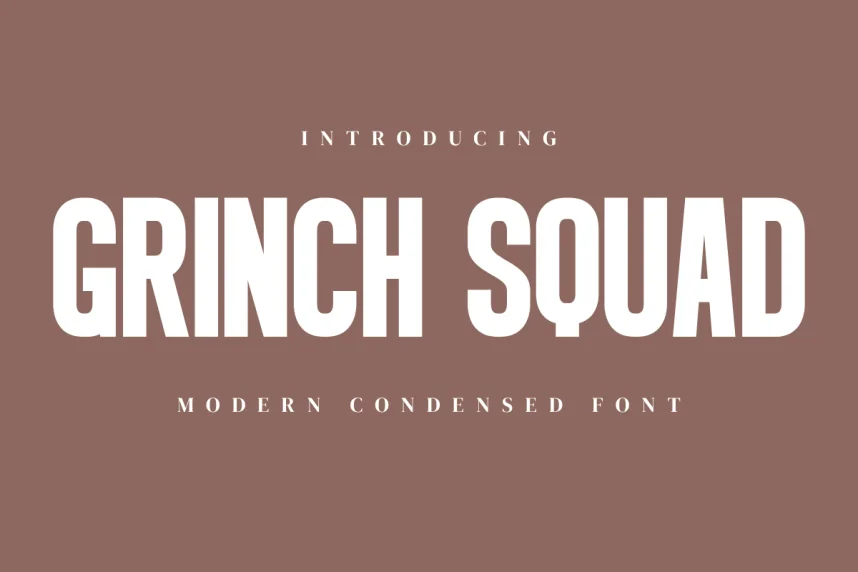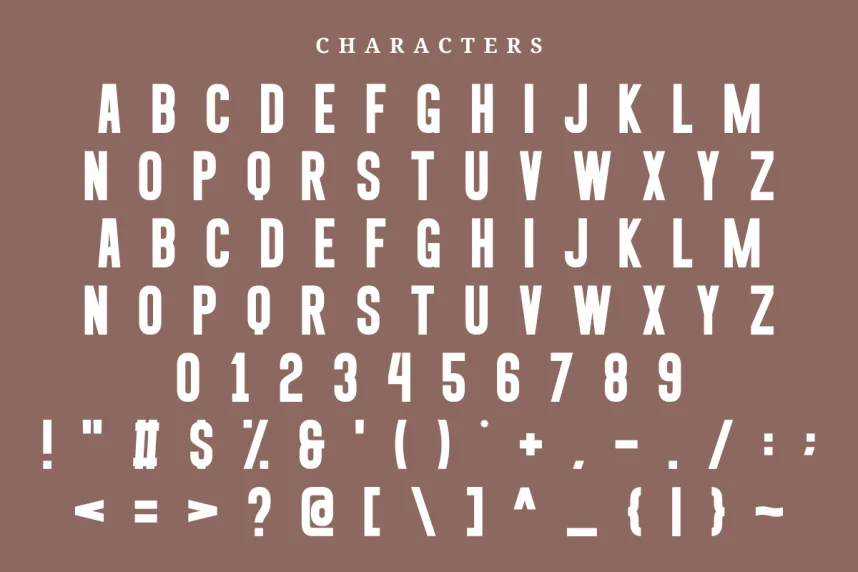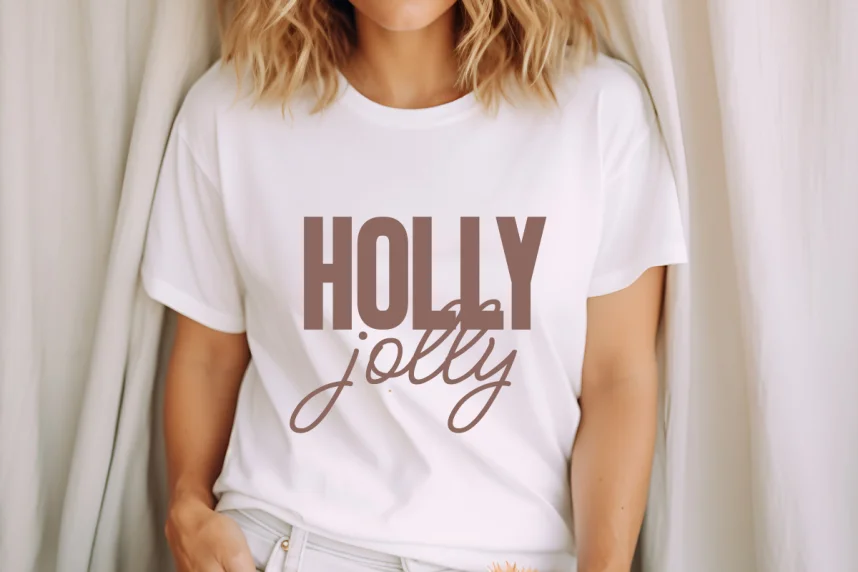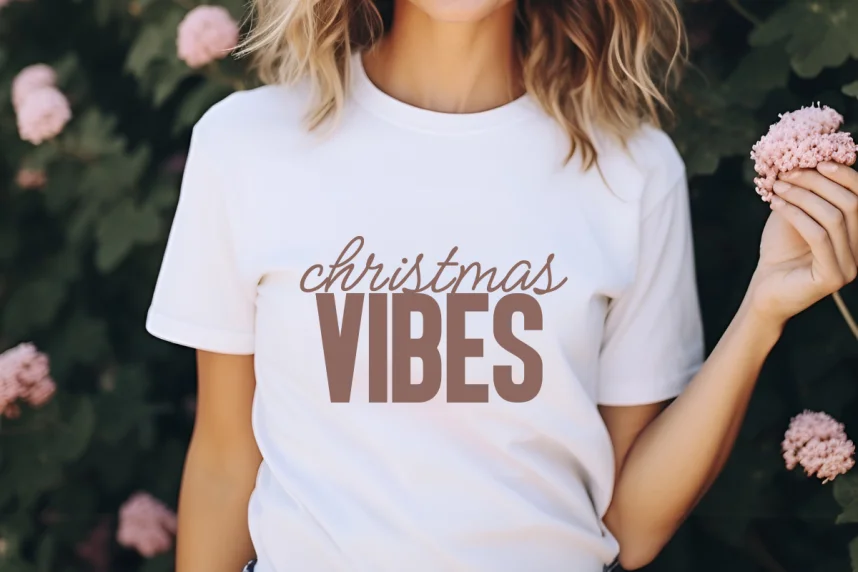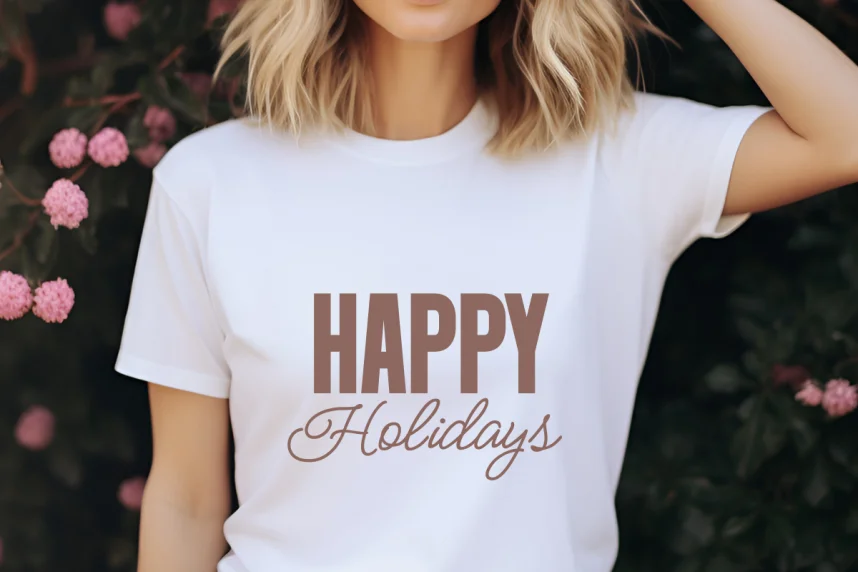
Grinch Squad Font is a playful display typeface created for seasonal designs, social media graphics, and branding that requires character and impact. Its bold, distinctive forms maintain legibility in decorative layouts.
The font features irregular strokes, exaggerated curves, and expressive terminals. Alternate characters and stylistic variations provide flexibility for festive posters, invitations, and Instagram visuals while keeping text readable.